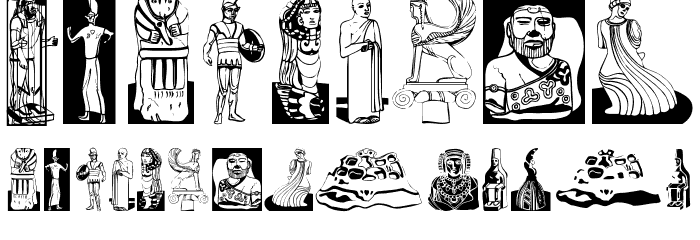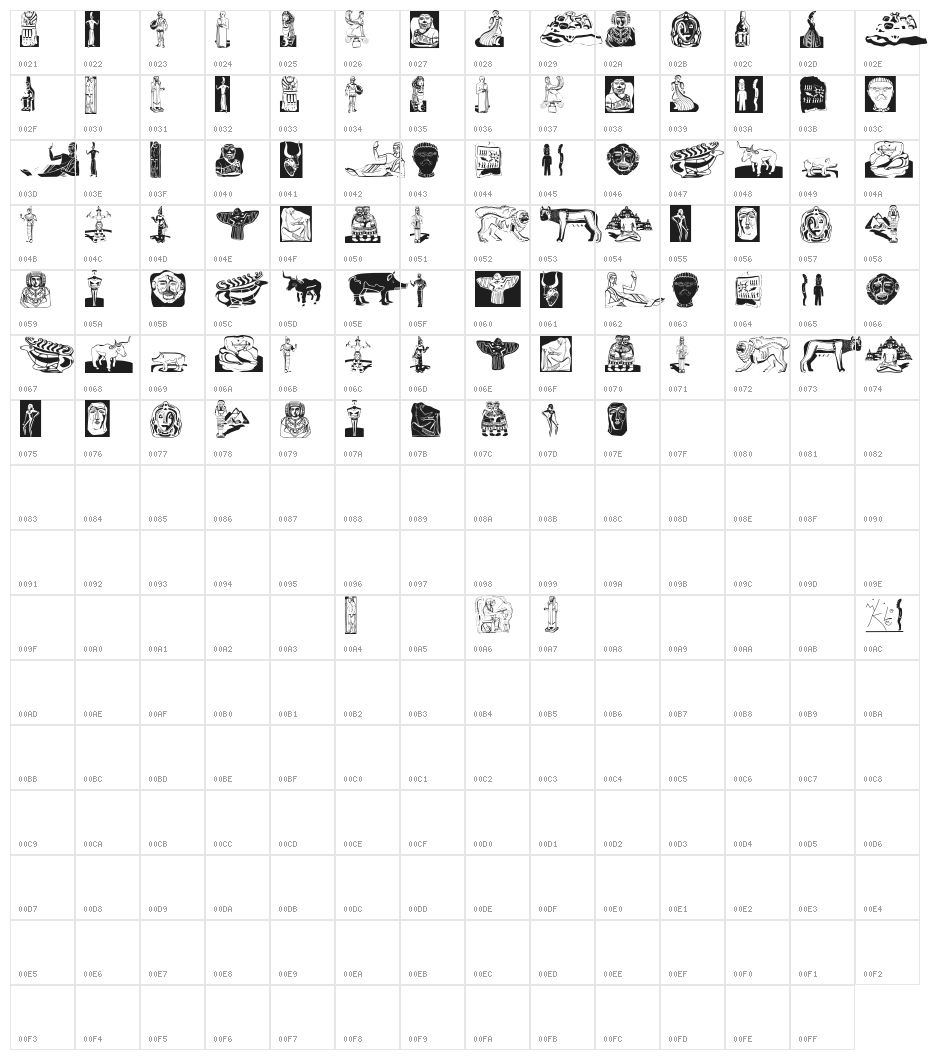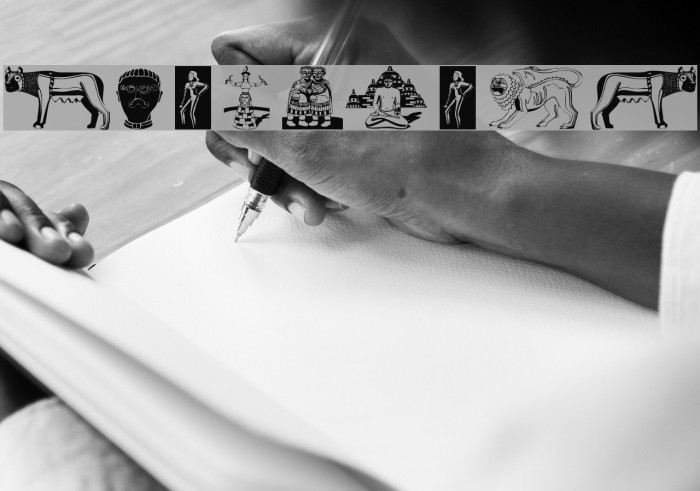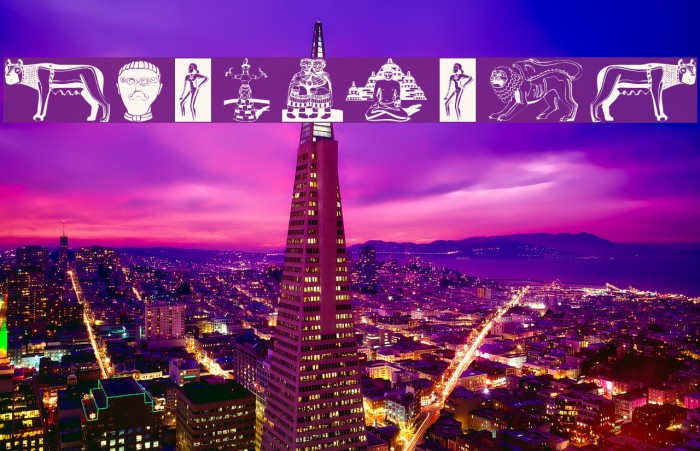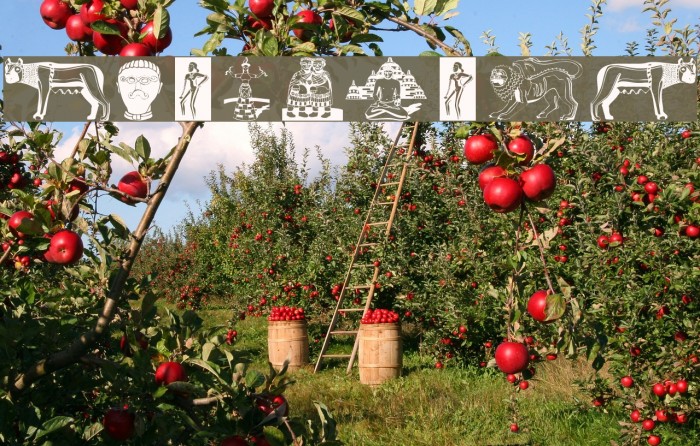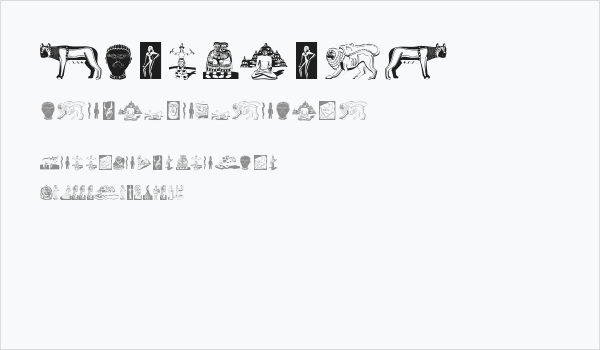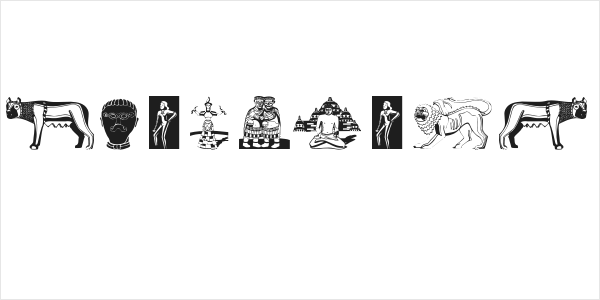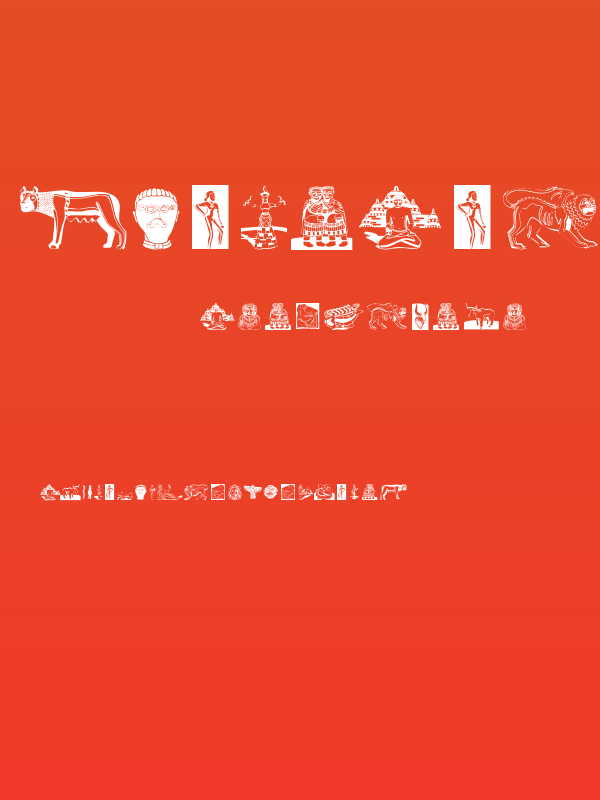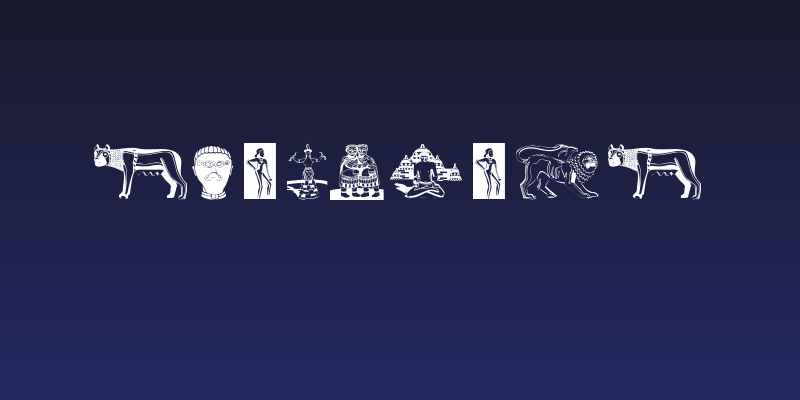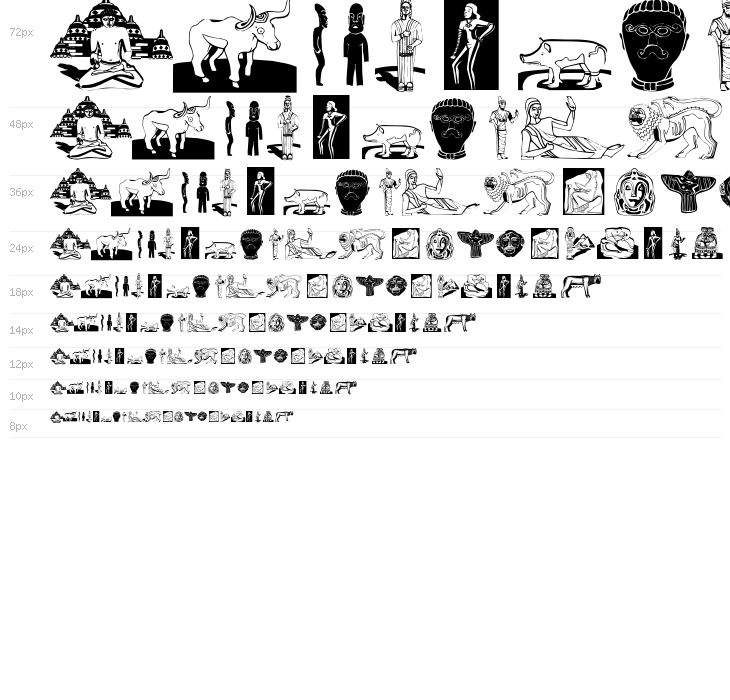
Sculpturs Font
Sculpturs Description
A decorative display font composed entirely of stylized illustrations of famous sculptures and artifacts from various cultures and eras, each glyph representing a different artwork in a bold, high-contrast black and white style. The characters are highly pictorial, lacking traditional letterforms, and are best suited for thematic or illustrative purposes rather than standard text.
| Overall Style | Decorative, Artistic, Thematic |
| Use Case | Logos, Headlines, Posters, Themed graphics |
| Proposed Projects | Museum posters, educational materials, art event branding, creative headlines, themed invitations. |